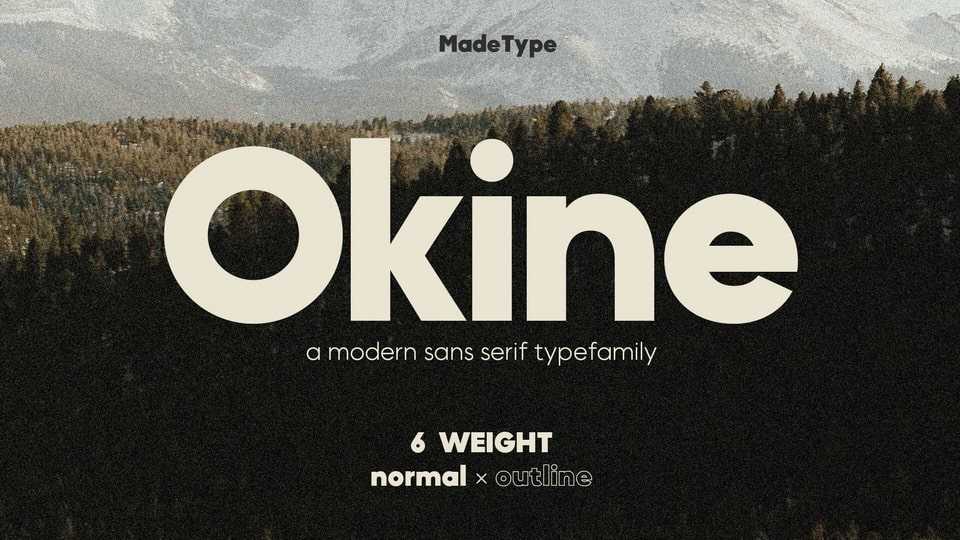
MADE Okine Sans Font › Fontesk – Download Grátis
Download MADE Okine Sans font, a modern sans serif typeface. MADE Okine Sans is a versatile typeface that can be used as a headline or as a body copy.
Designer: Made Type